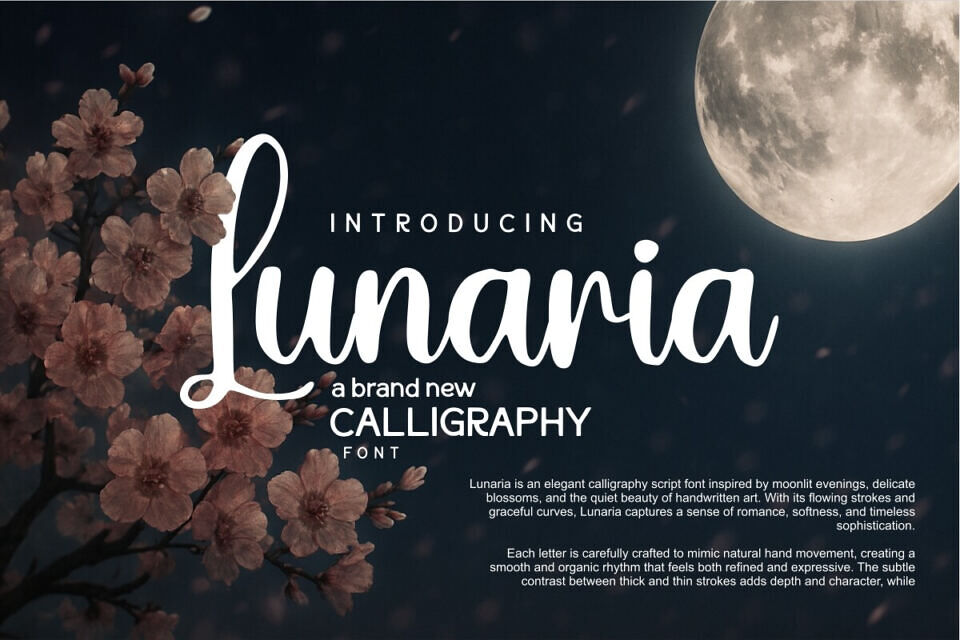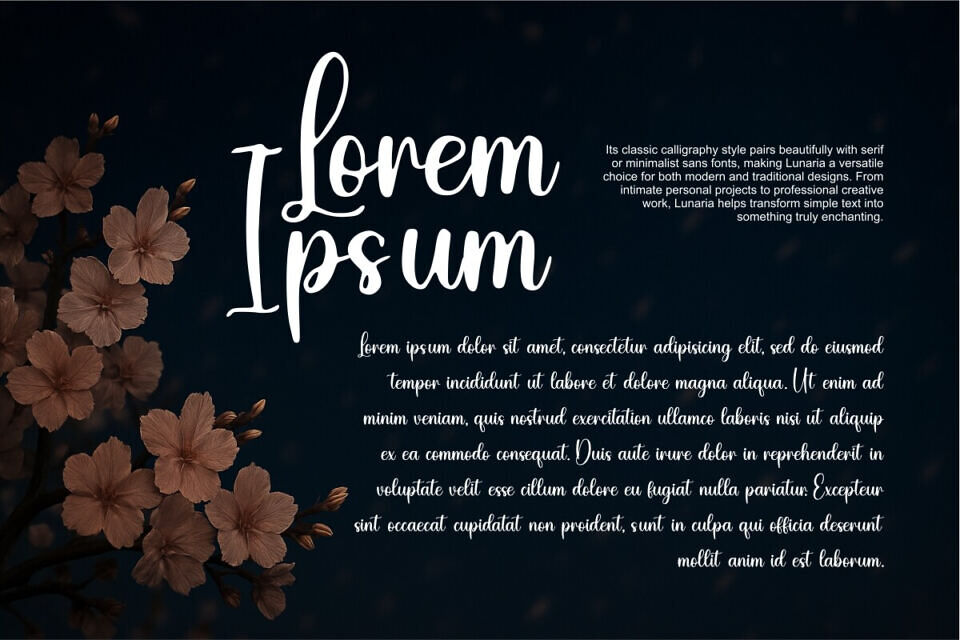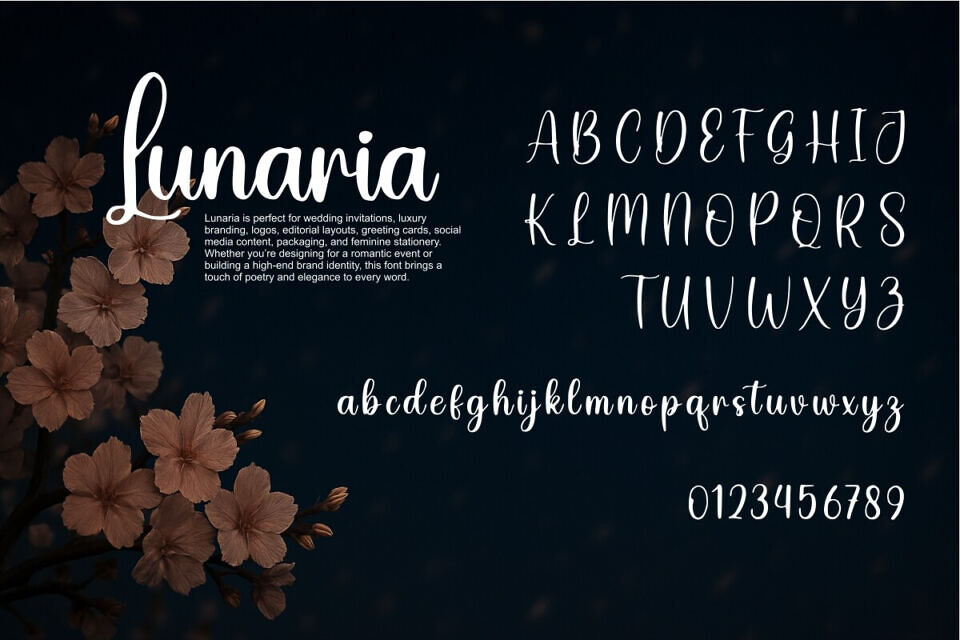
Lunaria is an elegant calligraphy script font inspired by moonlit evenings, delicate blossoms, and the quiet beauty of handwritten art. With its flowing strokes and graceful curves, Lunaria captures a sense of romance, softness, and timeless sophistication.
Each letter is carefully crafted to mimic natural hand movement, creating a smooth and organic rhythm that feels both refined and expressive. Lunaria is perfect for wedding invitations, luxury branding, logos, editorial layouts, greeting cards, social media content, packaging, and feminine stationery.